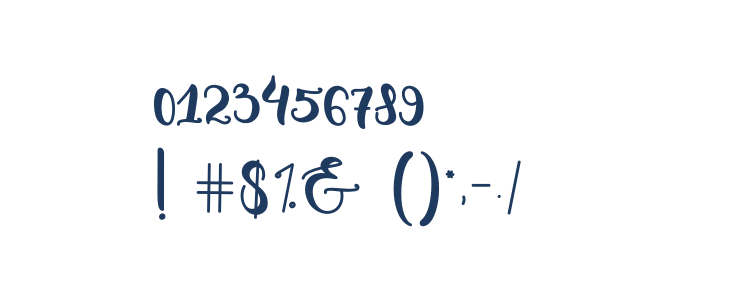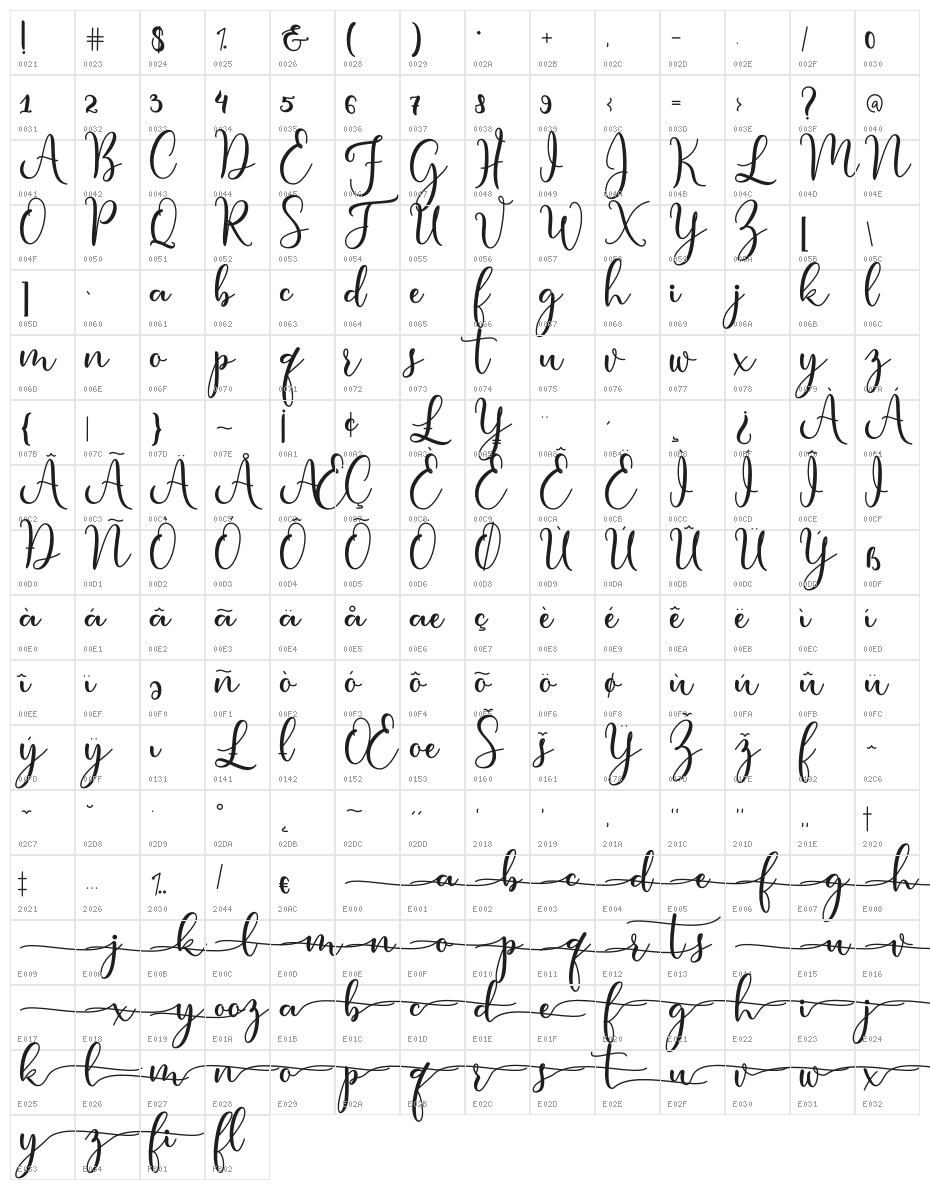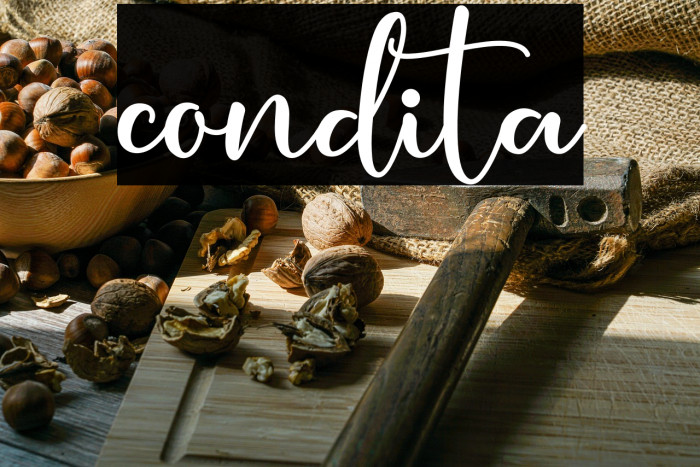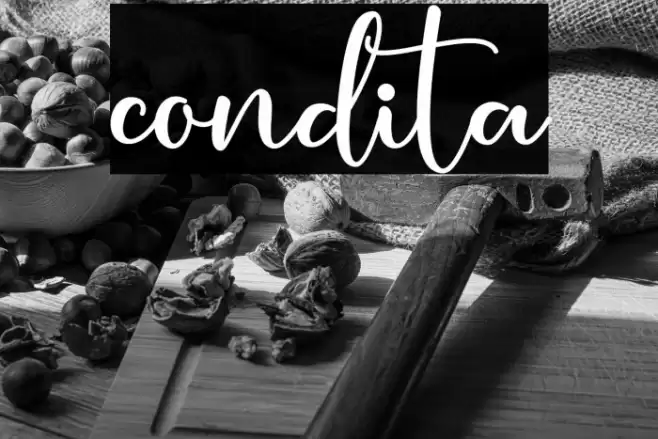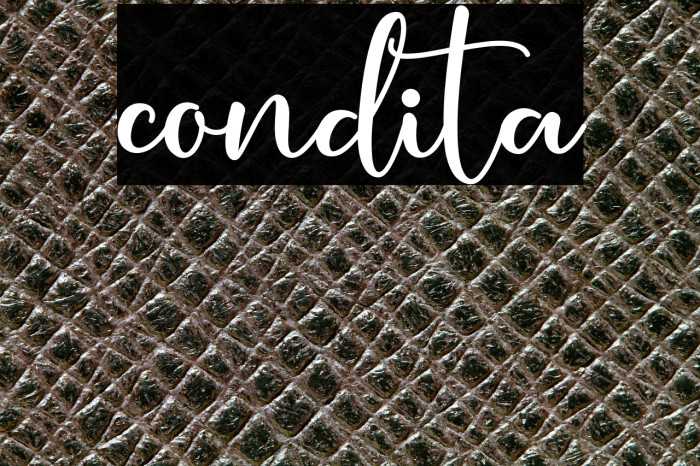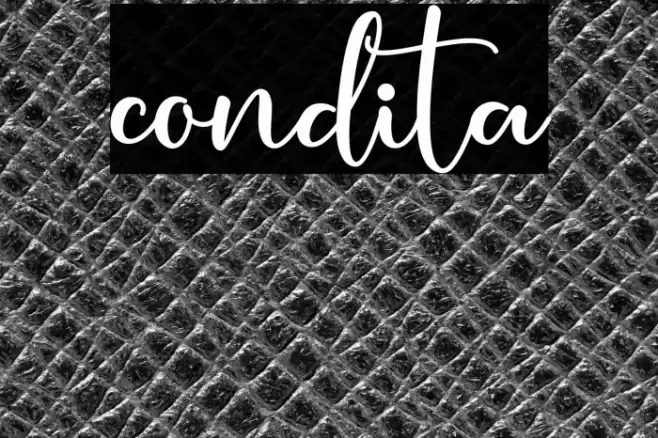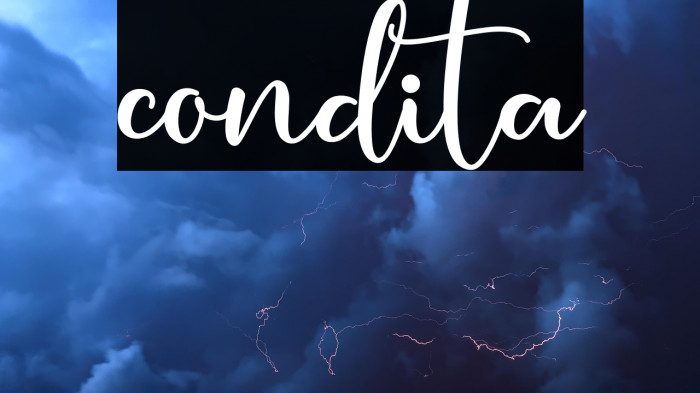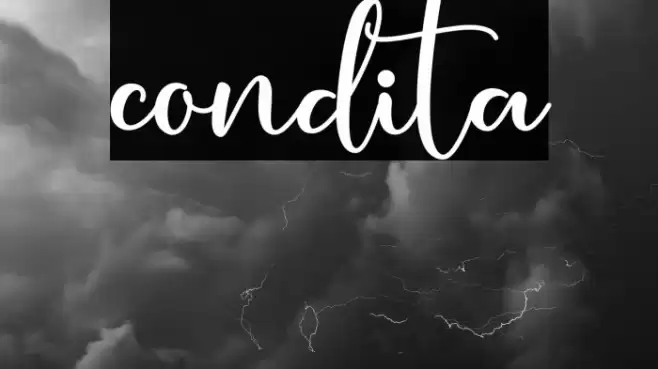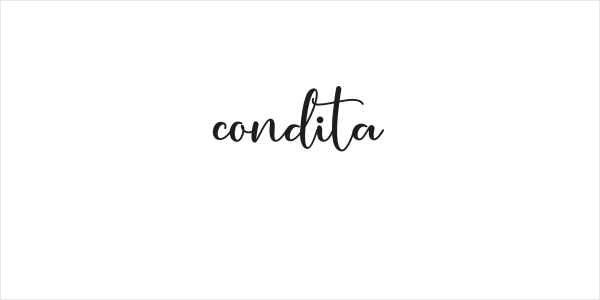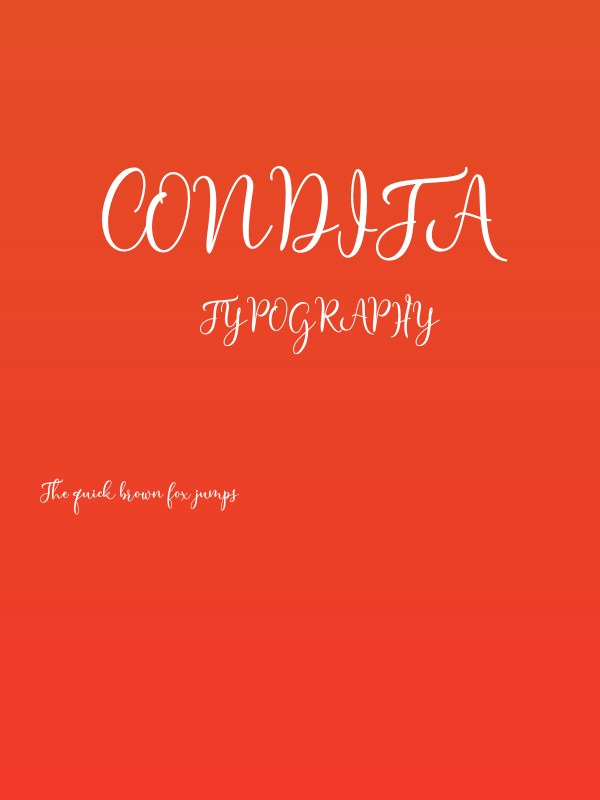
condita Font
condita Description
This font exudes a playful and elegant handwritten style, characterized by its flowing, cursive script. The uppercase letters are tall and graceful, with sweeping curves and loops that give them a sense of movement and fluidity. The lowercase letters maintain this fluidity, with a slightly more compact form that enhances readability. Numbers and special characters are crafted with the same attention to detail, ensuring consistency across all glyphs. The overall design is both sophisticated and approachable, making it suitable for a variety of creative applications.